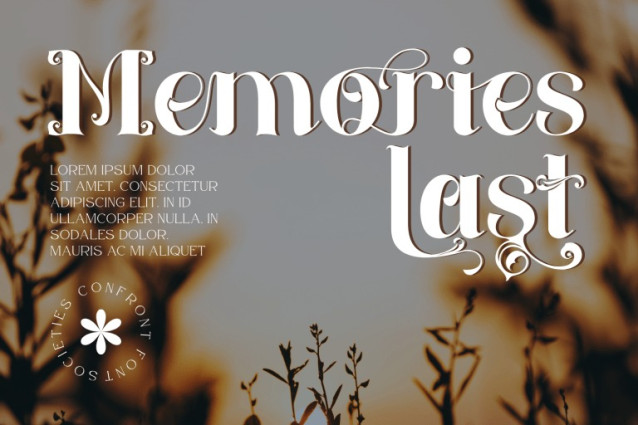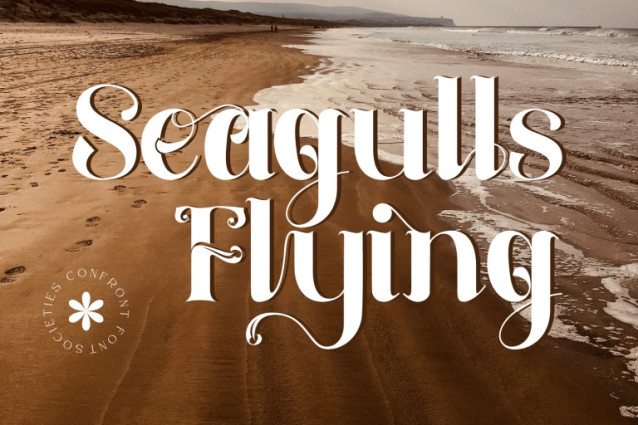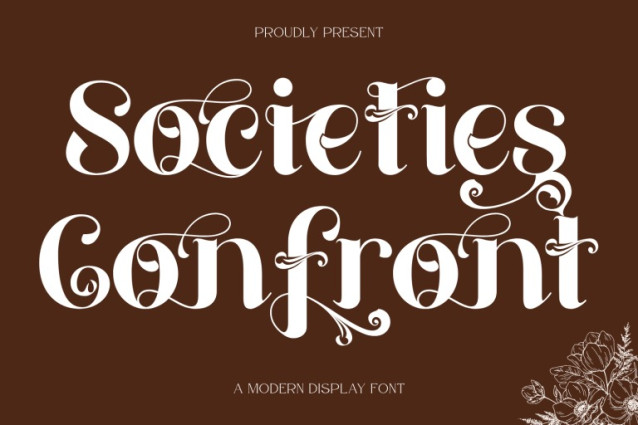
Societies Confront Font
Societies Confront – Romantic Font is an elegant ornamental calligraphic serif display typeface inspired by classic decorative typography and romantic editorial design. Featuring graceful high-contrast strokes, refined proportions, and beautifully crafted swashes, this typeface brings a luxurious and artistic personality to any project. The delicate flourishes and flowing ornamental curves create a harmonious visual rhythm that enhances the beauty of each letterform. Societies Confront is perfect for wedding invitations, boutique branding, perfume packaging, editorial headlines, and sophisticated logo design.
Uppercase & Lowercase Letters
Around 100 Special Ligatures & Alternates
Accented Characters for multilingual support
🔤About 100 ligatures combined with Stylistic Alternates Font: